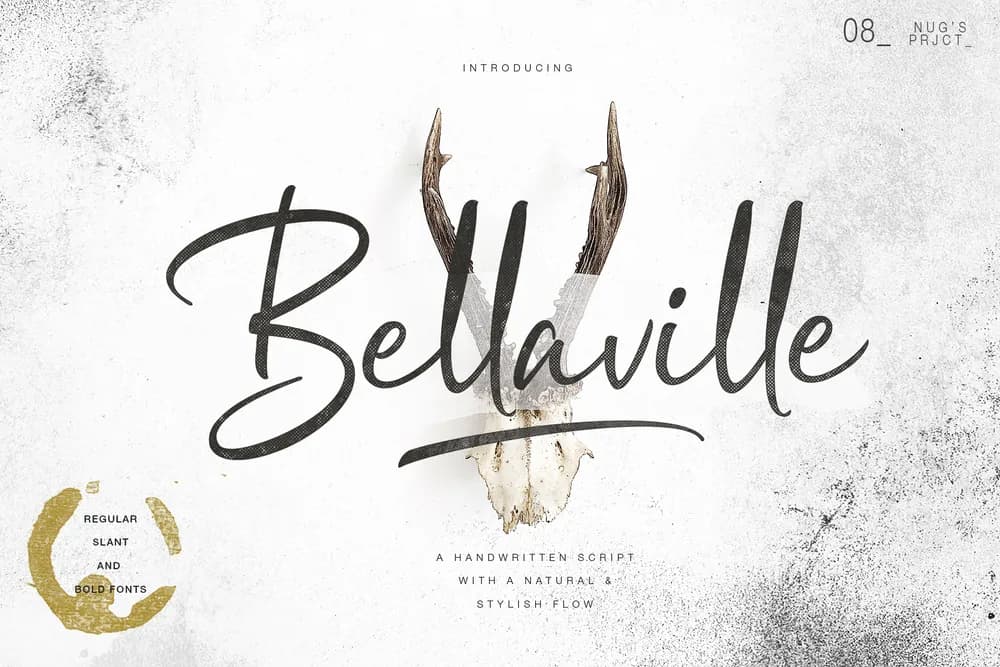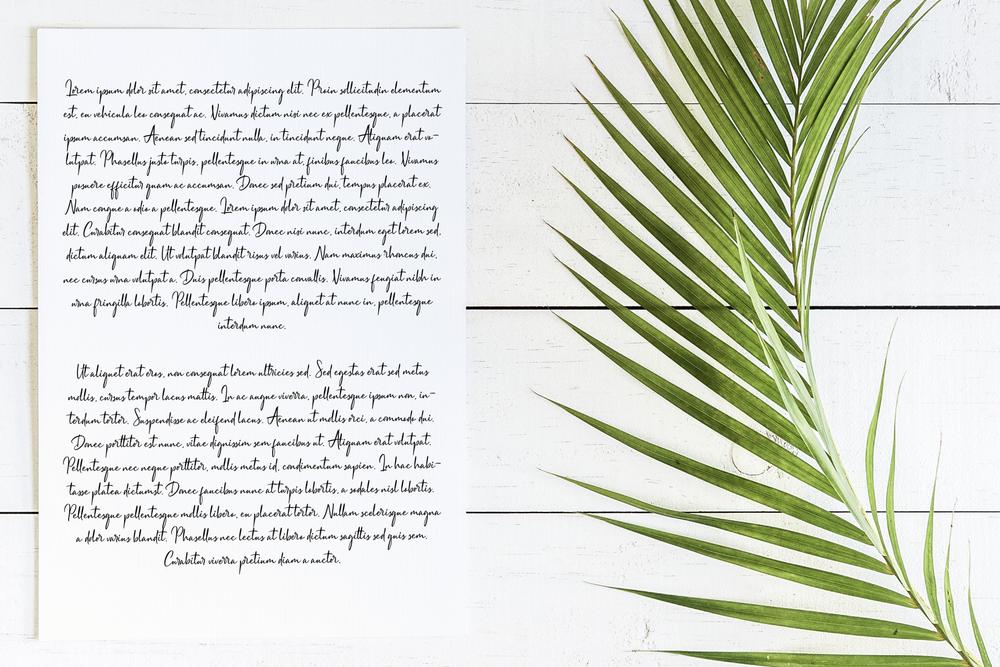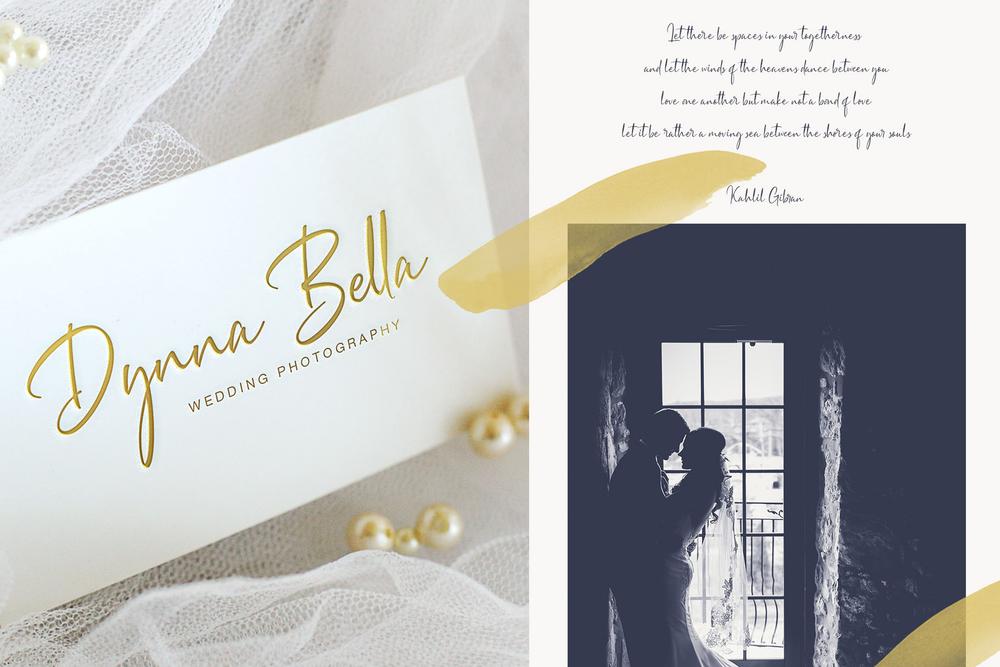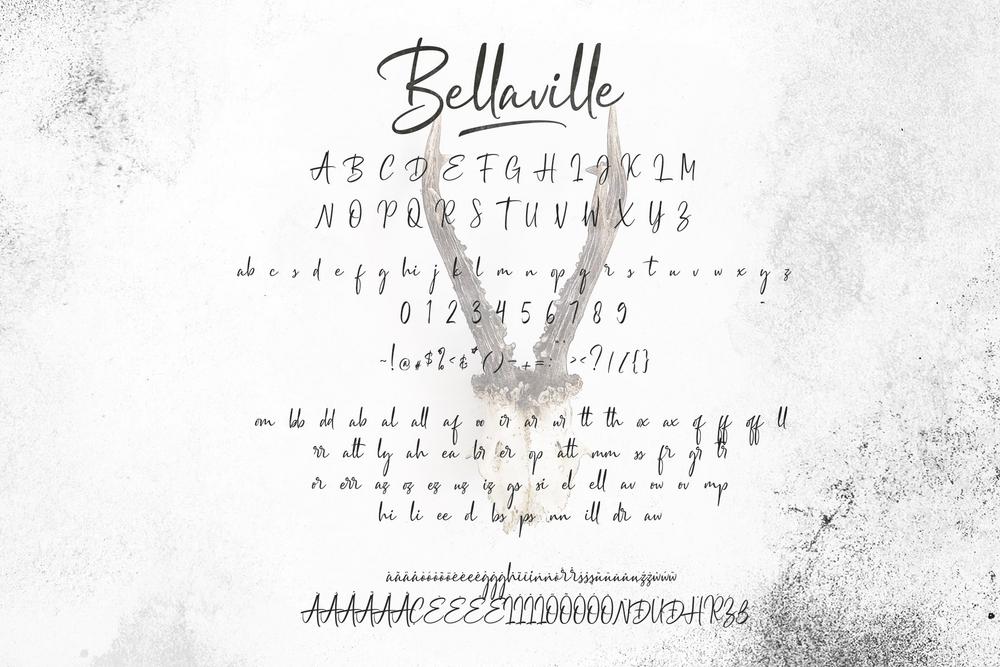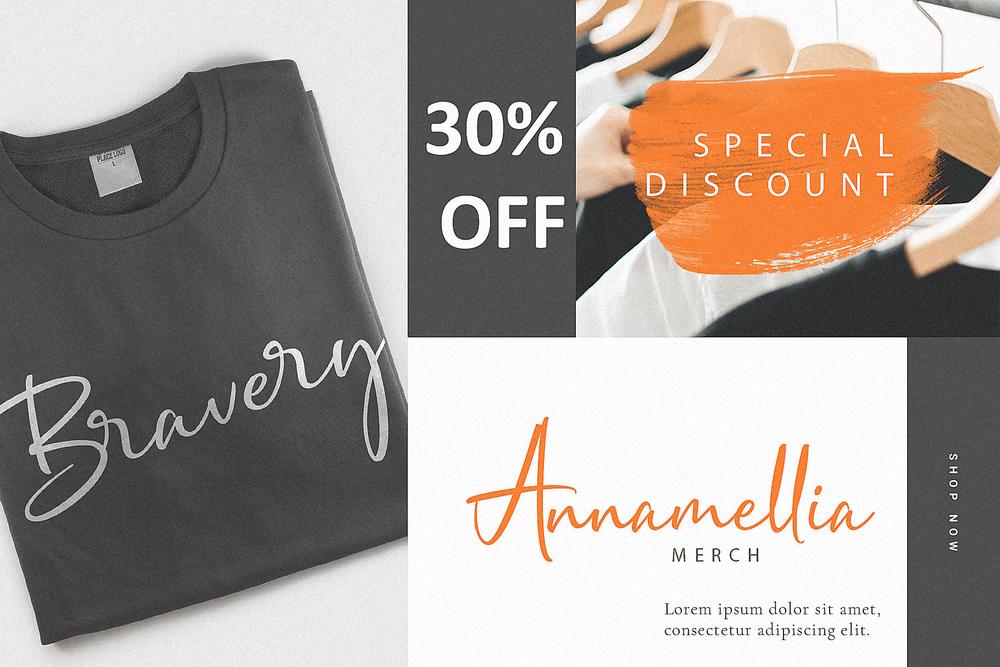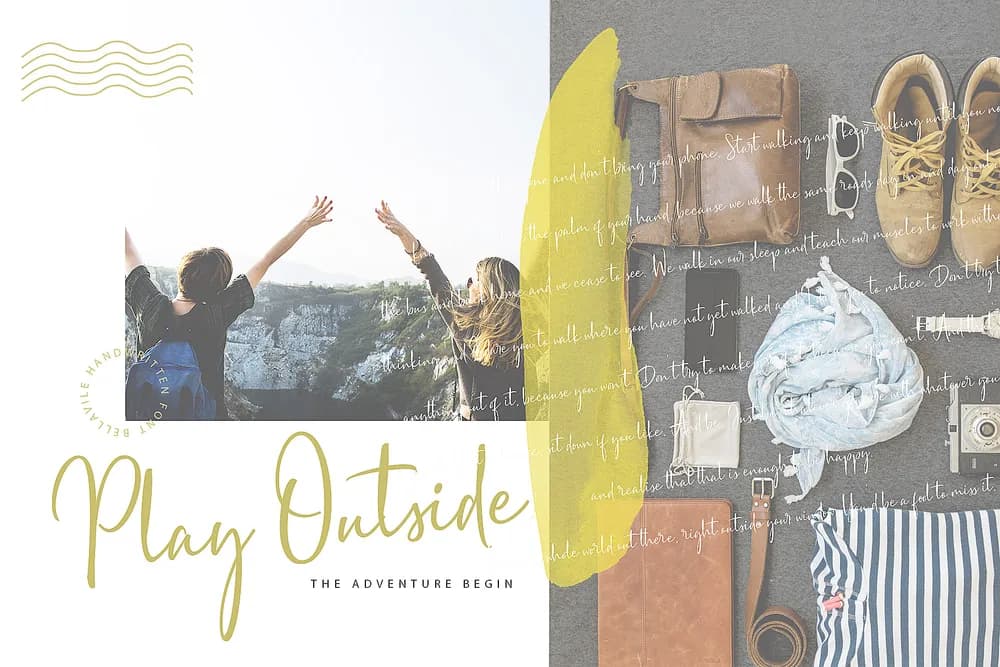
The Bellavile is a striking handwritten font. It has natural curves and is perfect for adding a personal touch to your branding, watermarks, logos, and much more! 𝐅𝐞𝐚𝐭𝐮𝐫𝐞𝐬 : ☛ Uppercase & lowercase letters ☛ Numerals & punctuation ☛ Multilingual support ☛ Bonus Png Element 𝐅𝐨𝐫𝐦𝐚𝐭 : OTF, TTF, EPS and WOFF. Thank you and hope you enjoy :)